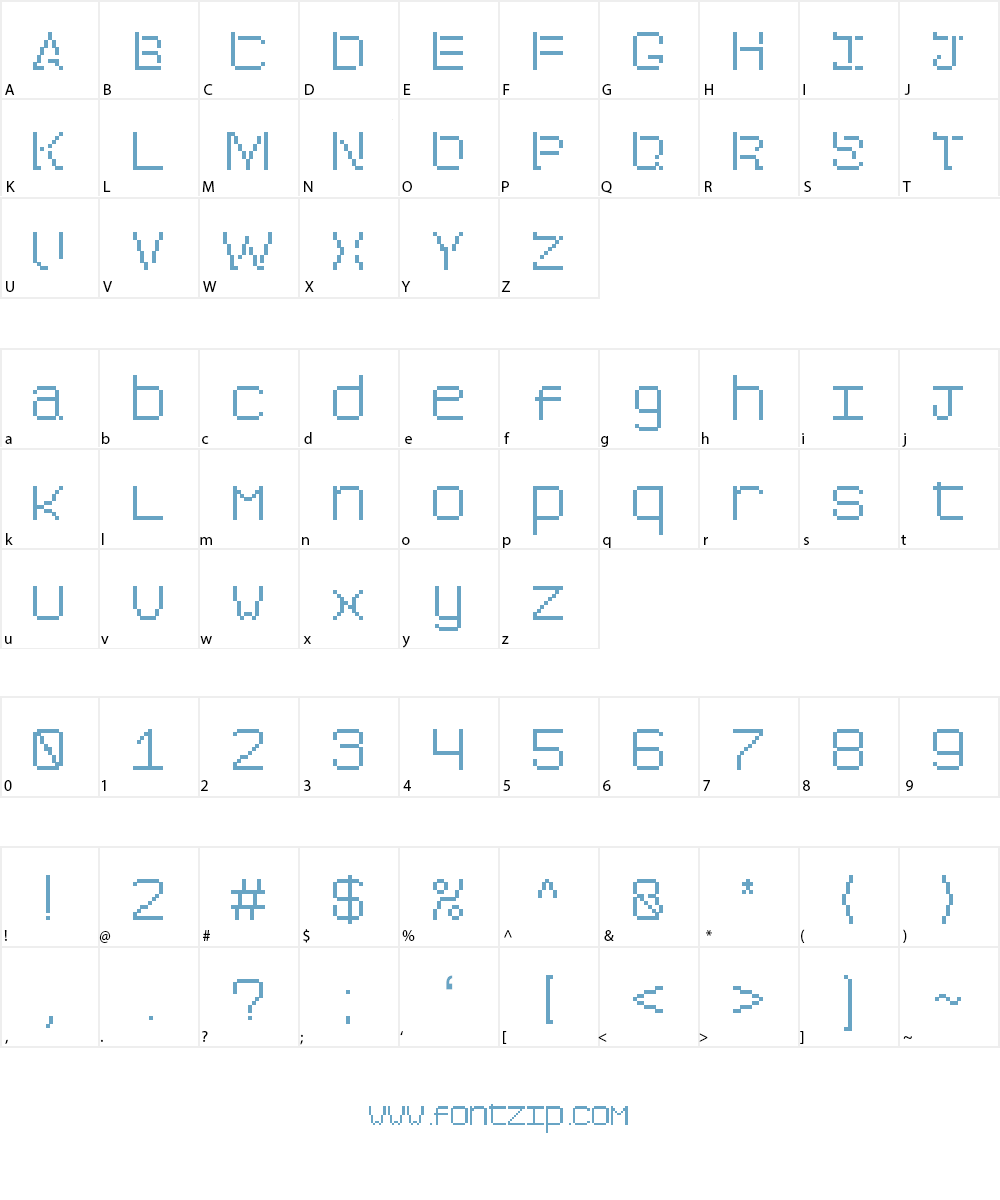
A bitmap font where the capitals are in a drop shadow effect, perfect for a black background.
I created this font for myself a few months ago when I never managed to find a bitmap drop shadow style font for myself.